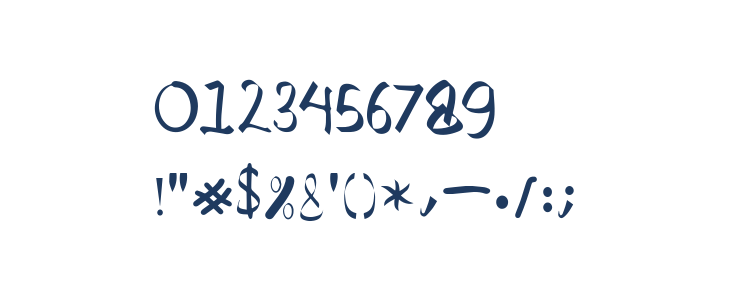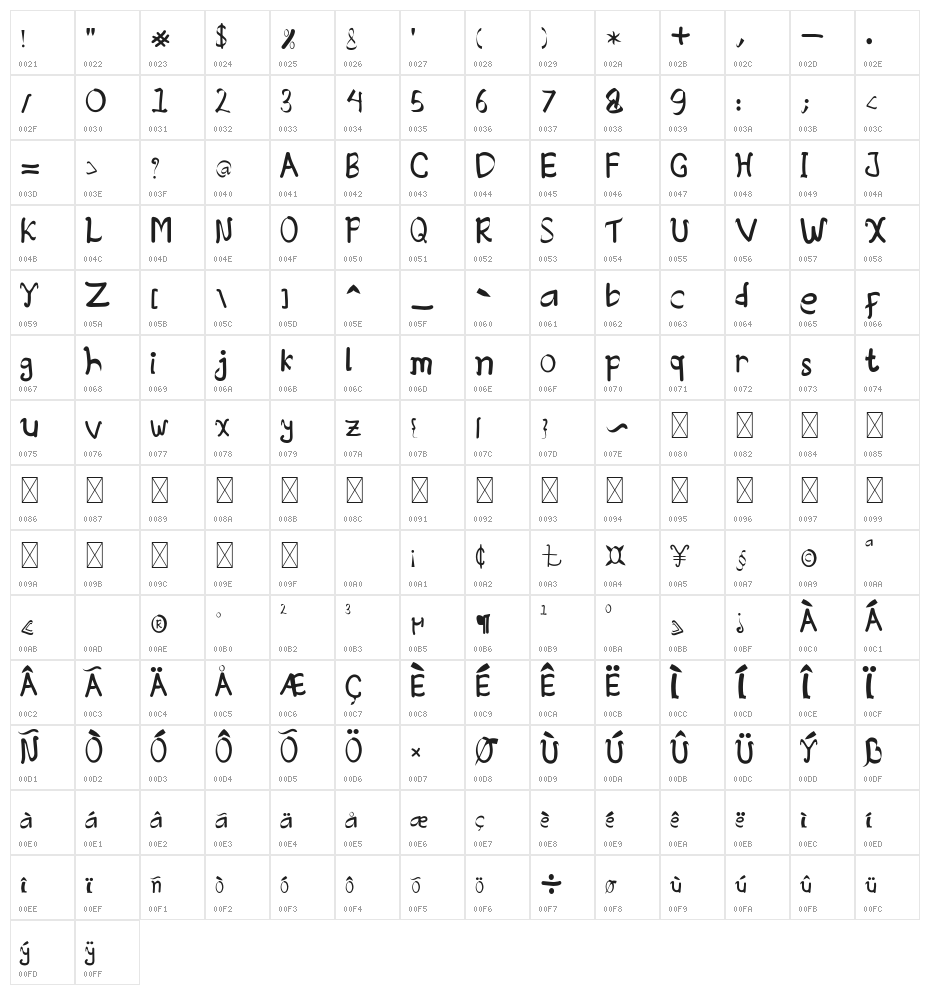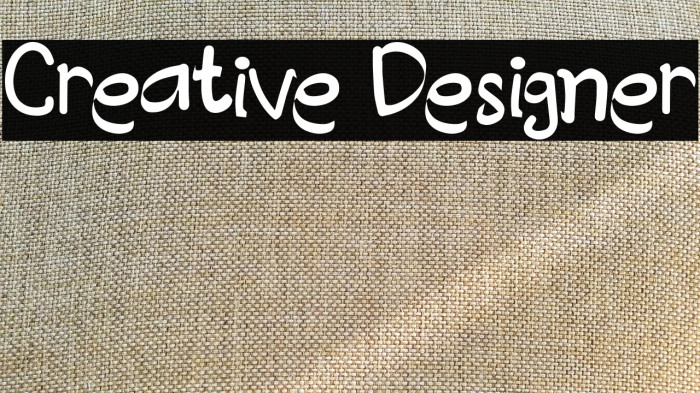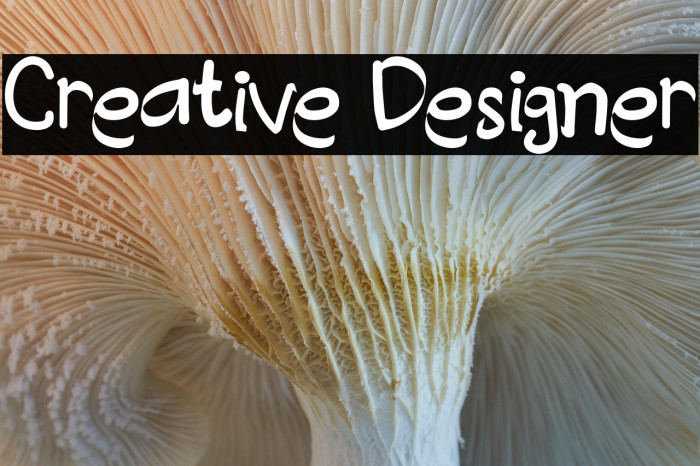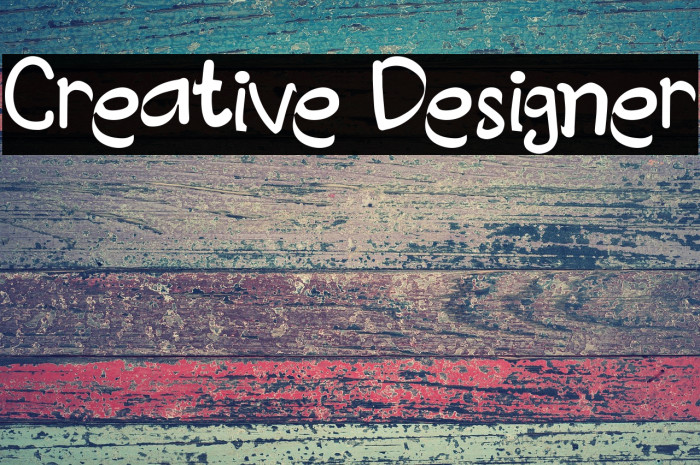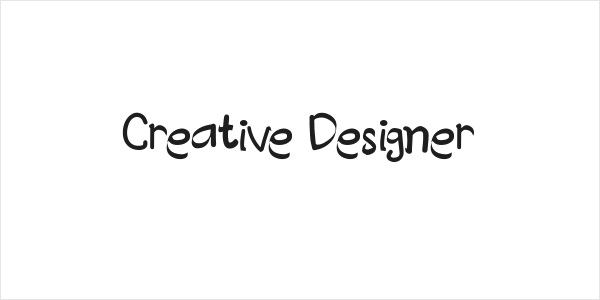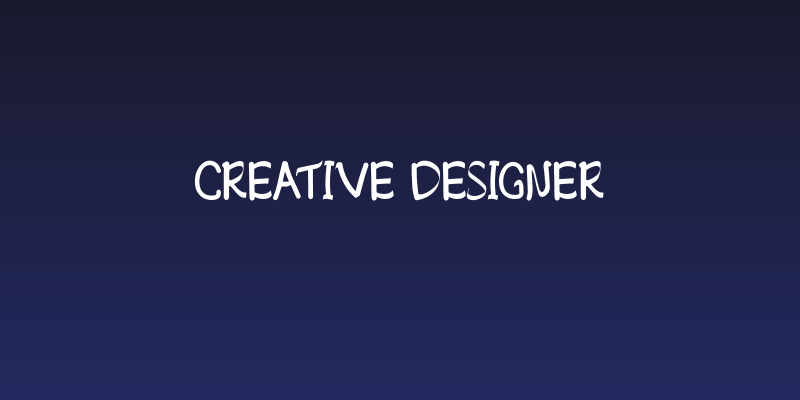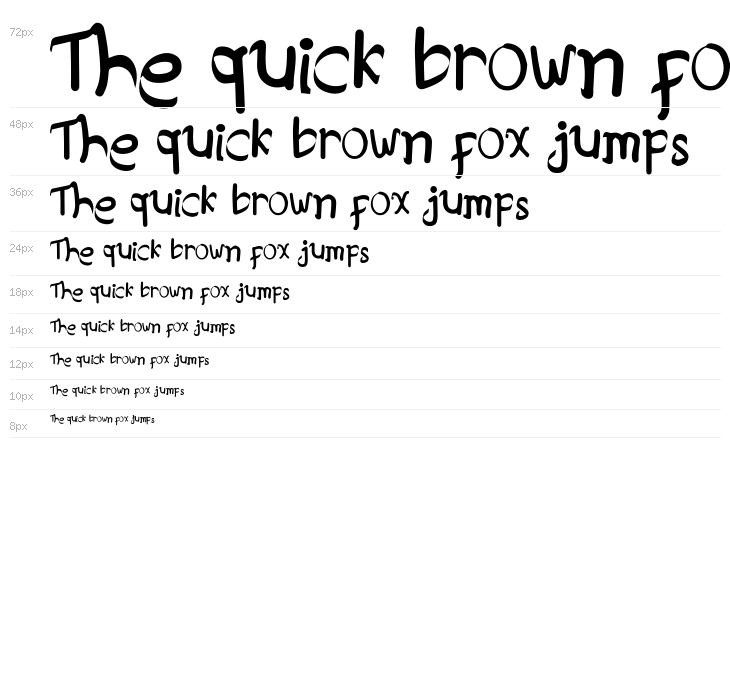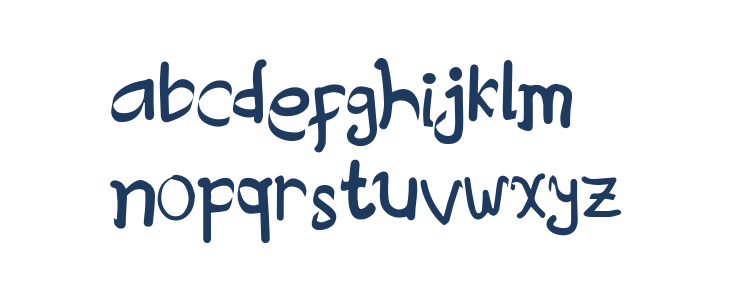
Creative Designer Font
Creative Designer Description
This font features a playful and whimsical style, characterized by its irregular and dynamic letterforms. The strokes vary in thickness, giving it a hand-drawn appearance that adds a sense of creativity and spontaneity. The uppercase letters are bold and slightly tilted, while the lowercase letters maintain a consistent flow with unique curves and loops. Numbers and special characters follow the same lively design, making the font versatile for various creative applications. Its distinct personality makes it ideal for projects that require a touch of fun and individuality.
| Proposed Projects | Ideal for children's books, creative posters, playful branding, and artistic invitations. |